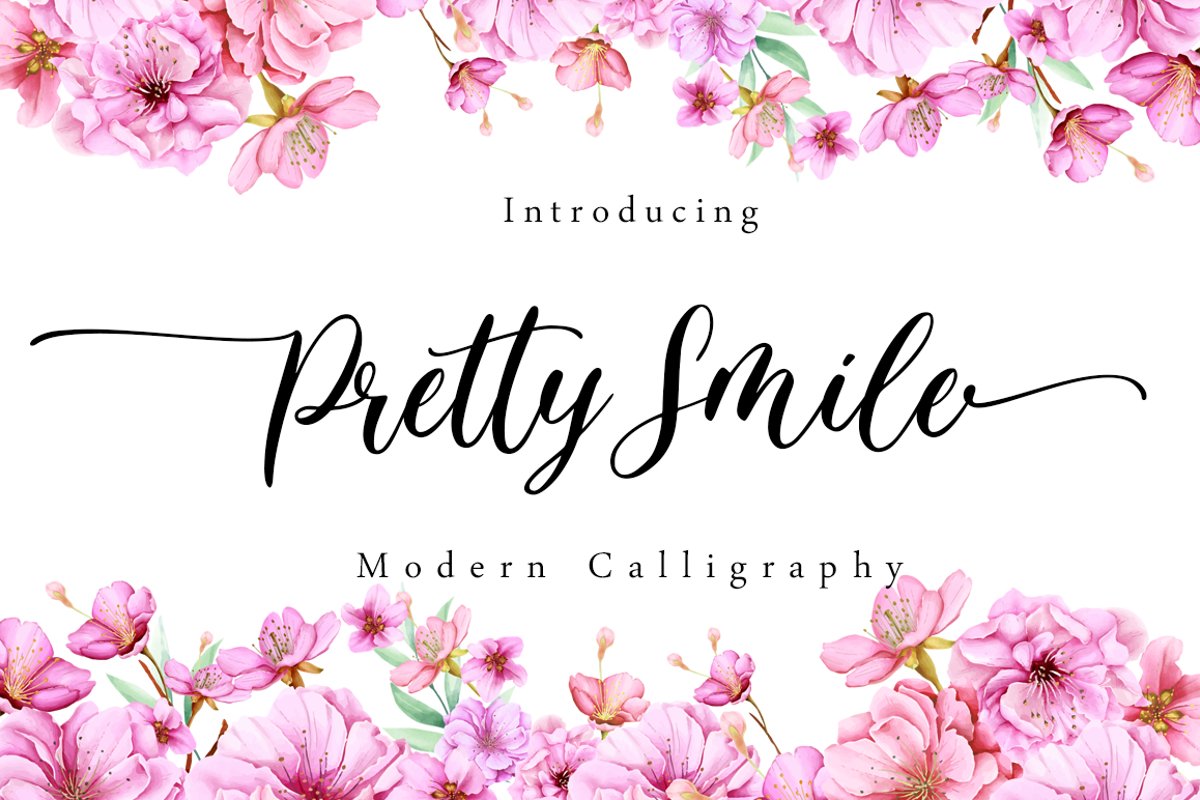
Pretty Smile - Modern Calligraphy
pretty smile
Pretty Smile - Modern Callighraphy
Pretty Smile is a beautiful calligraphy font perfect for crafting, branding, invitation, stationery, wedding designs, social media posts, advertisements, product packaging, product designs, label, photography, watermark, special events or anything.
Pretty Smile comes with full set of uppercase and lowercase letters, swash alternates, ligatures,multilingual symbols, numerals and punctuation.